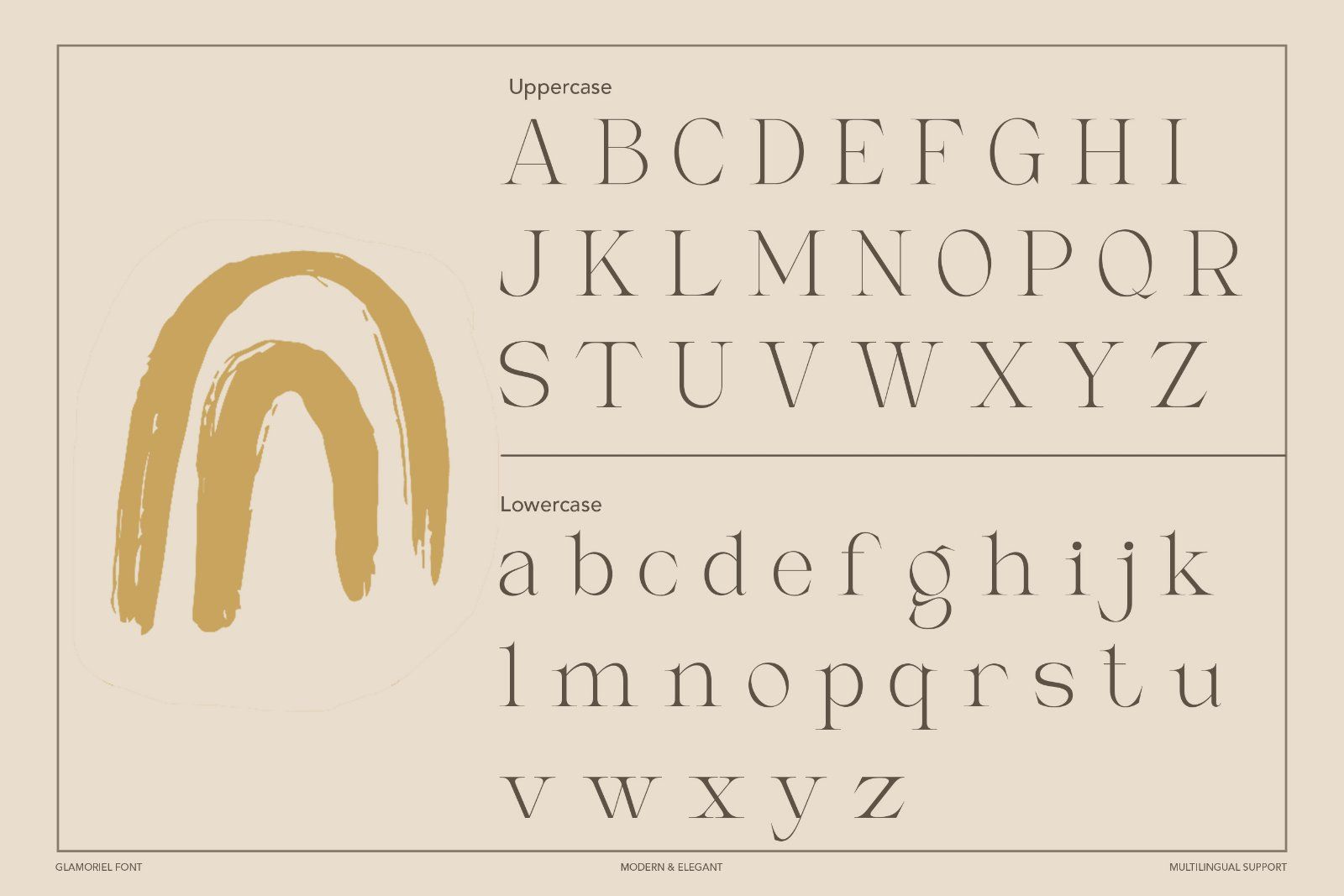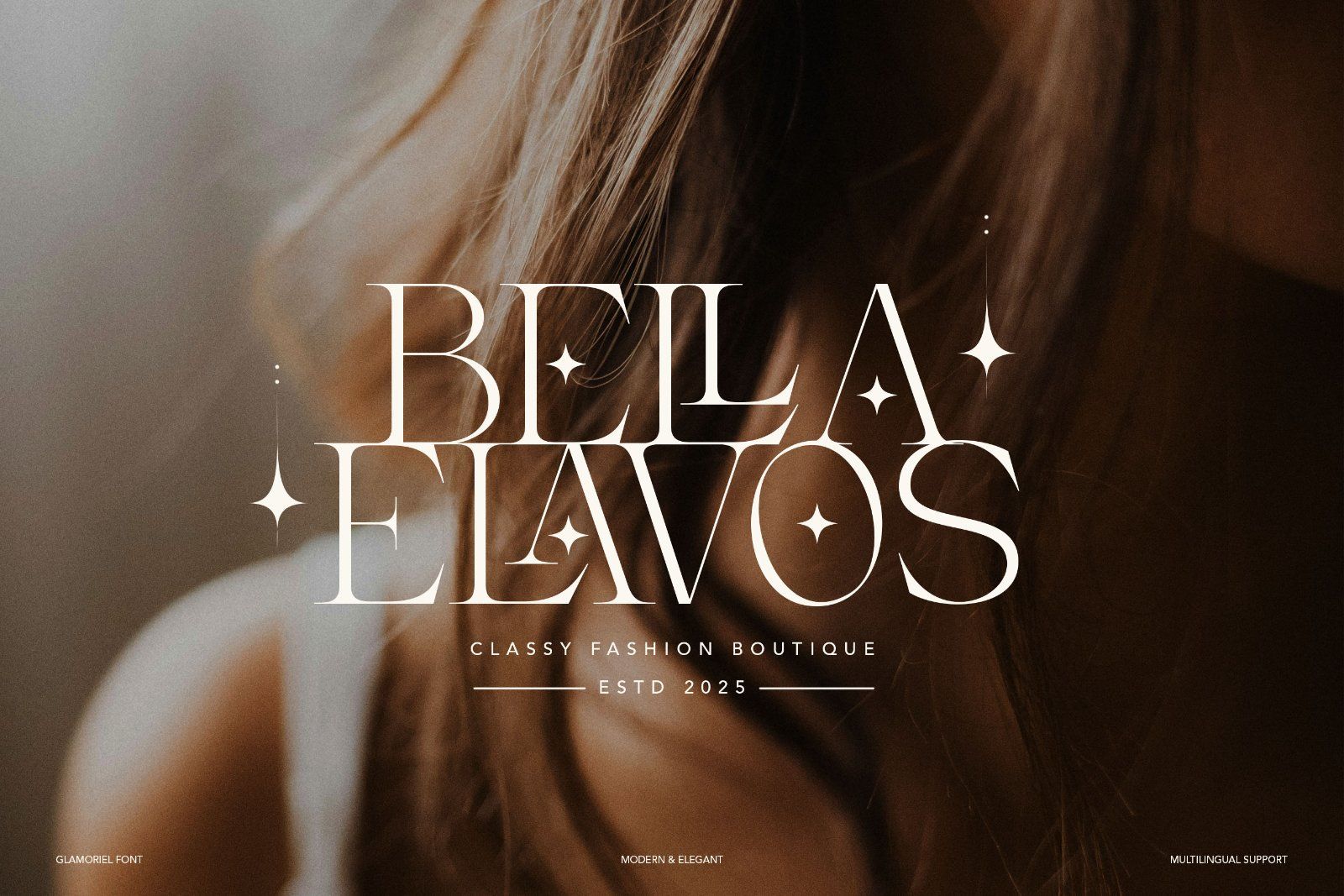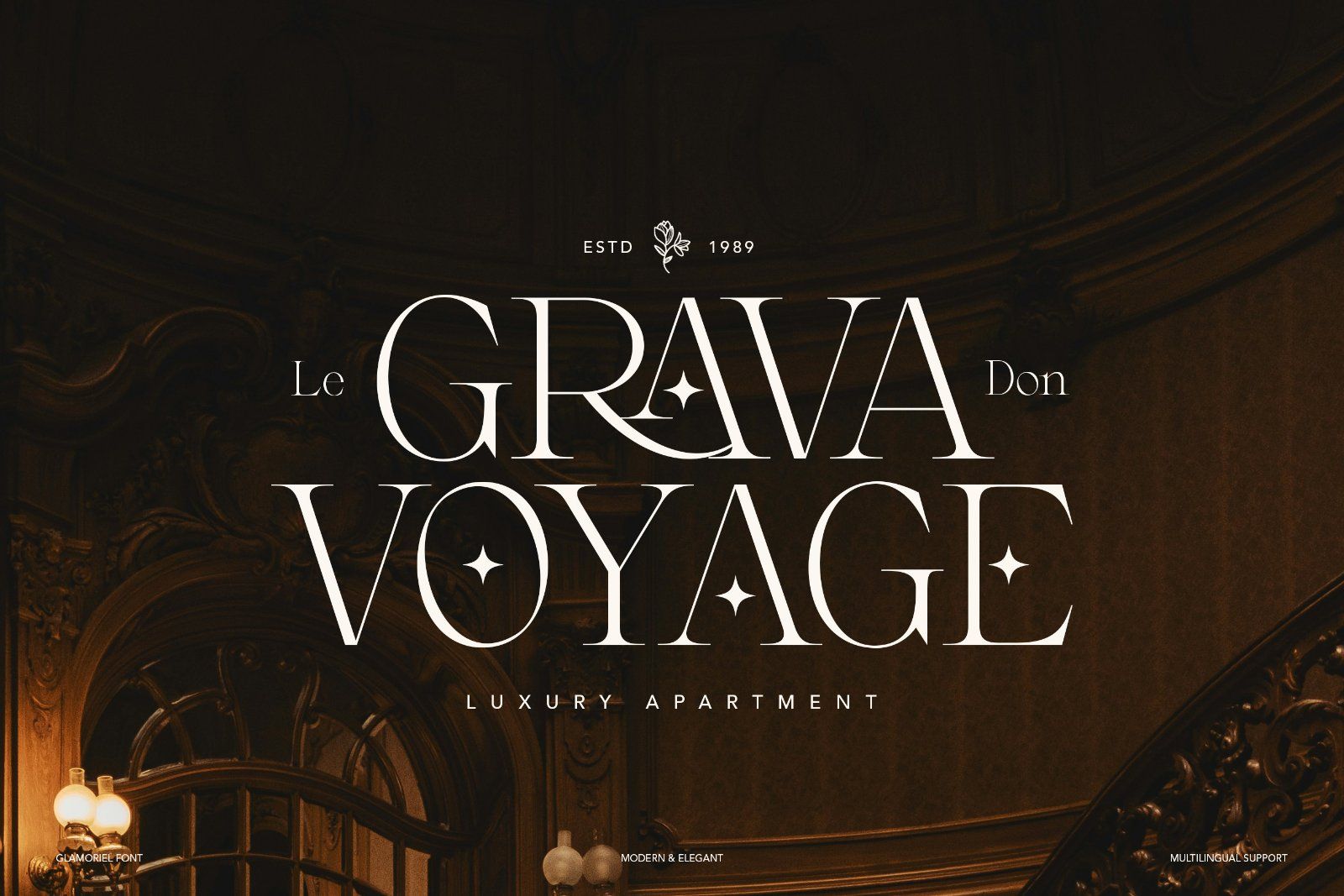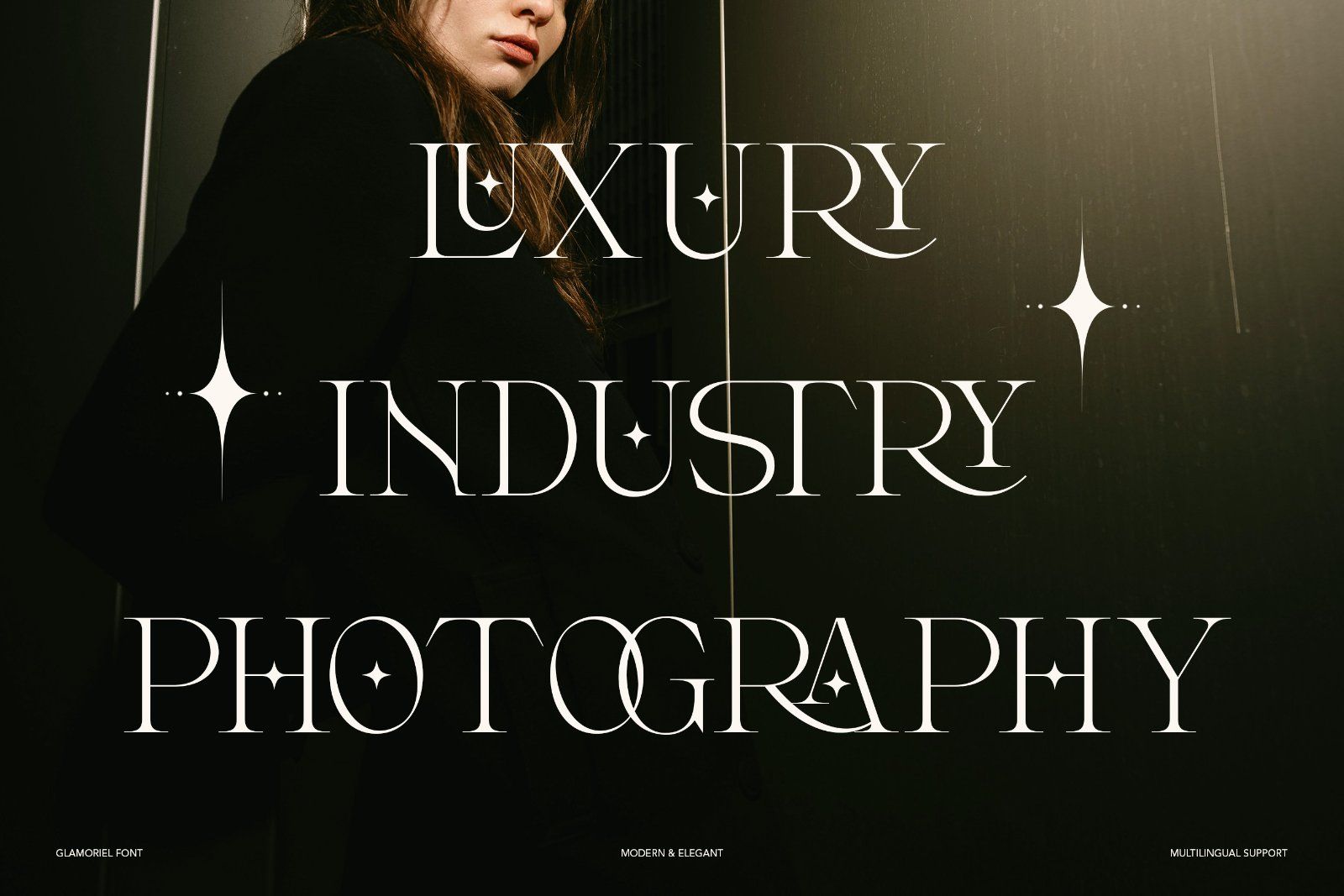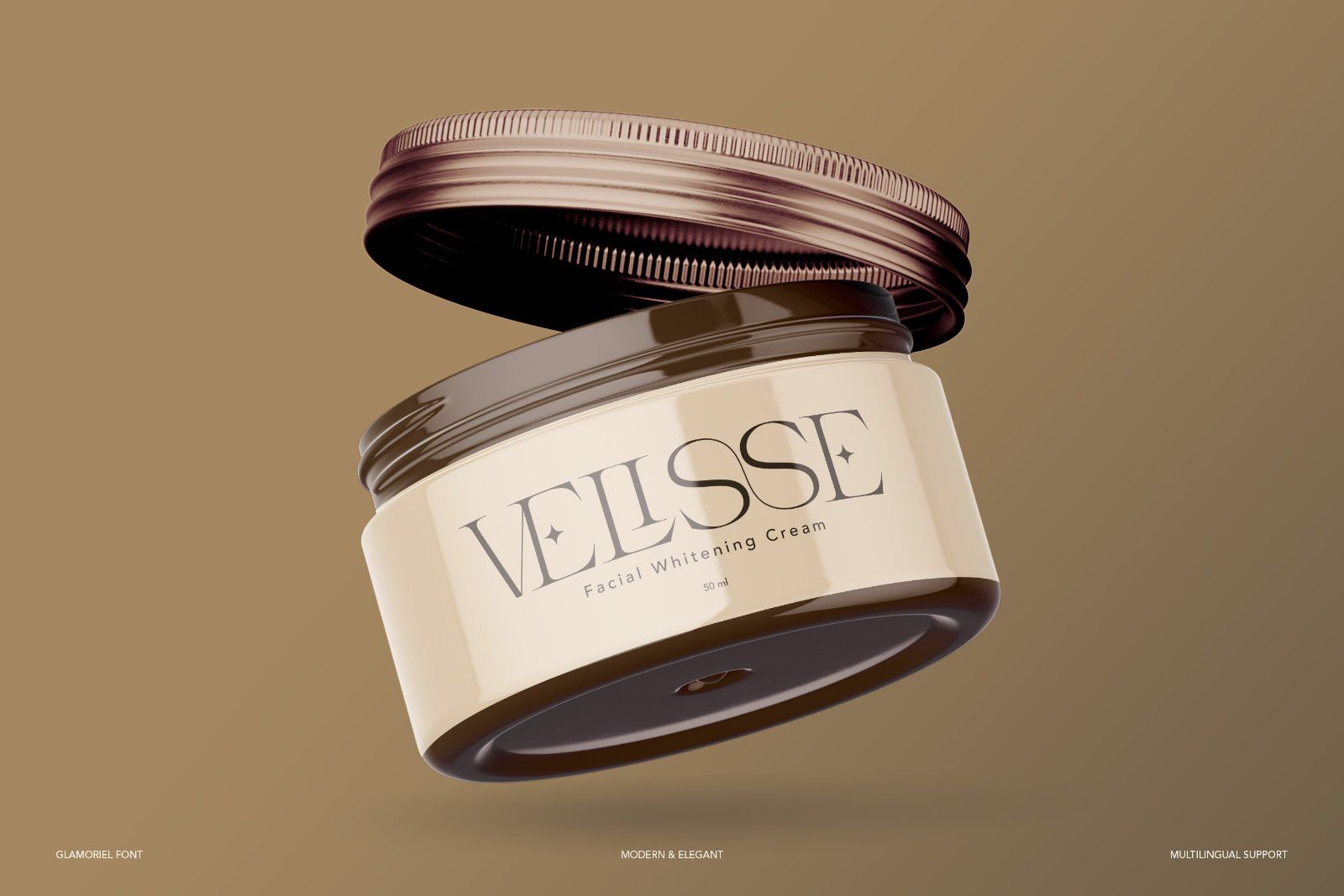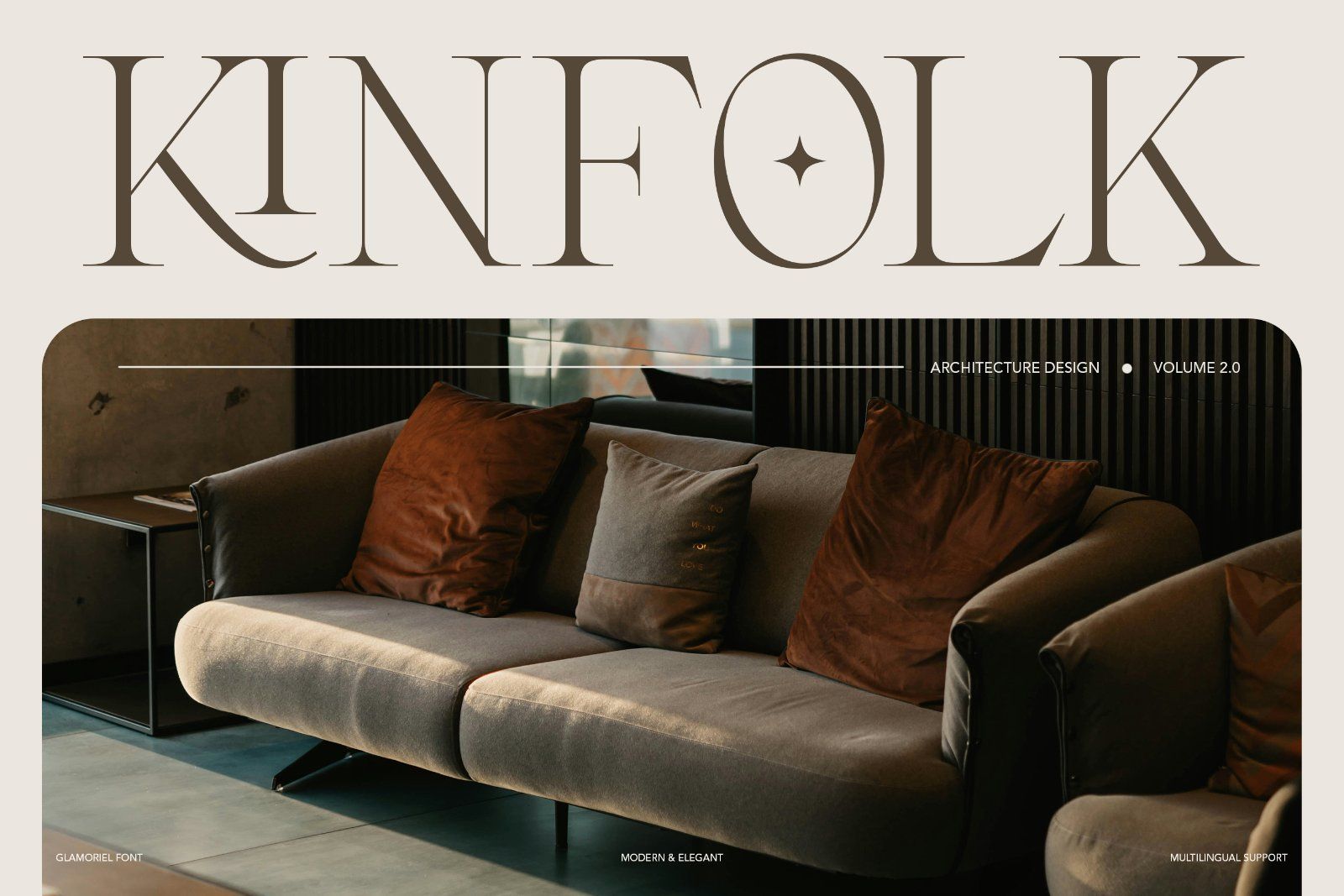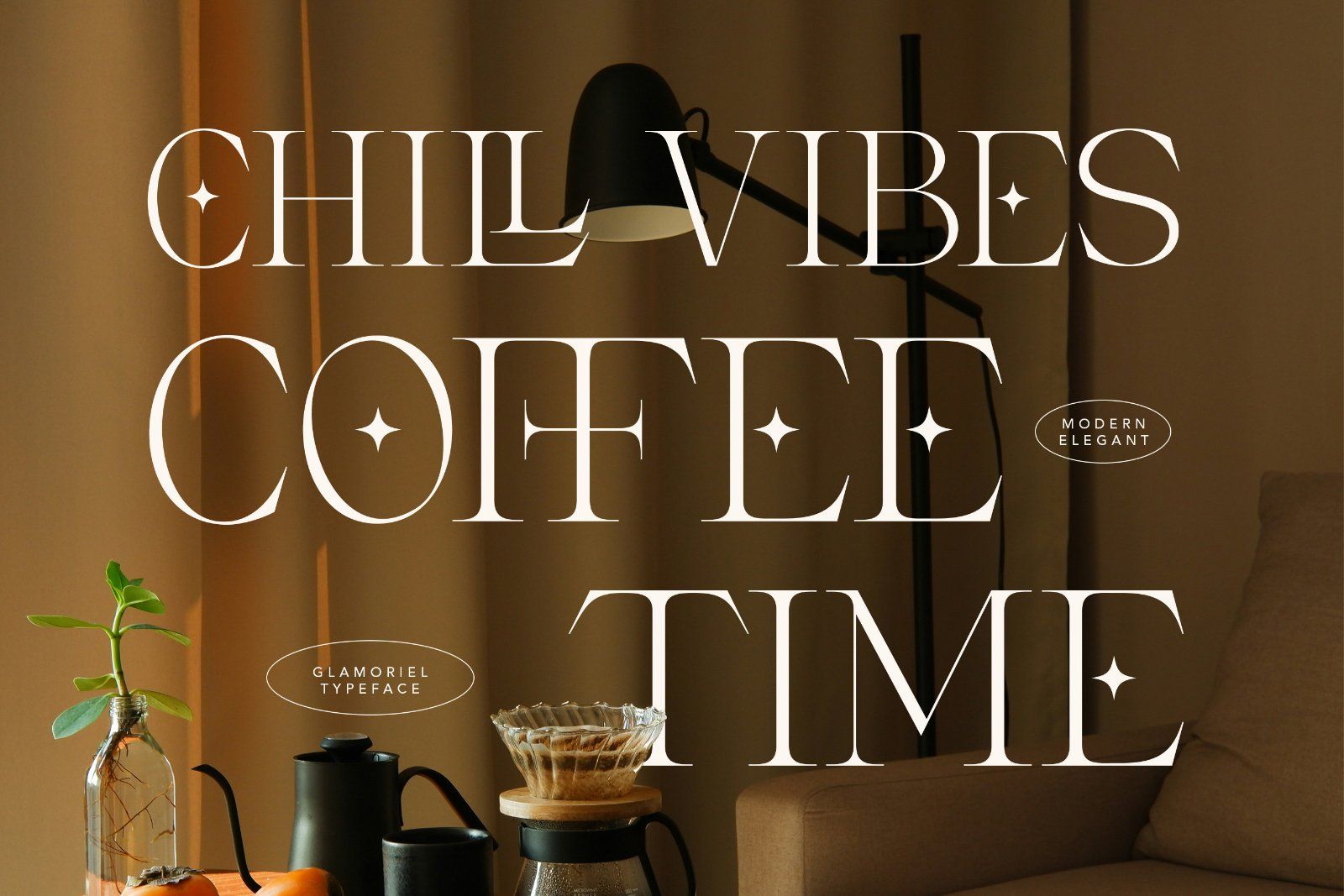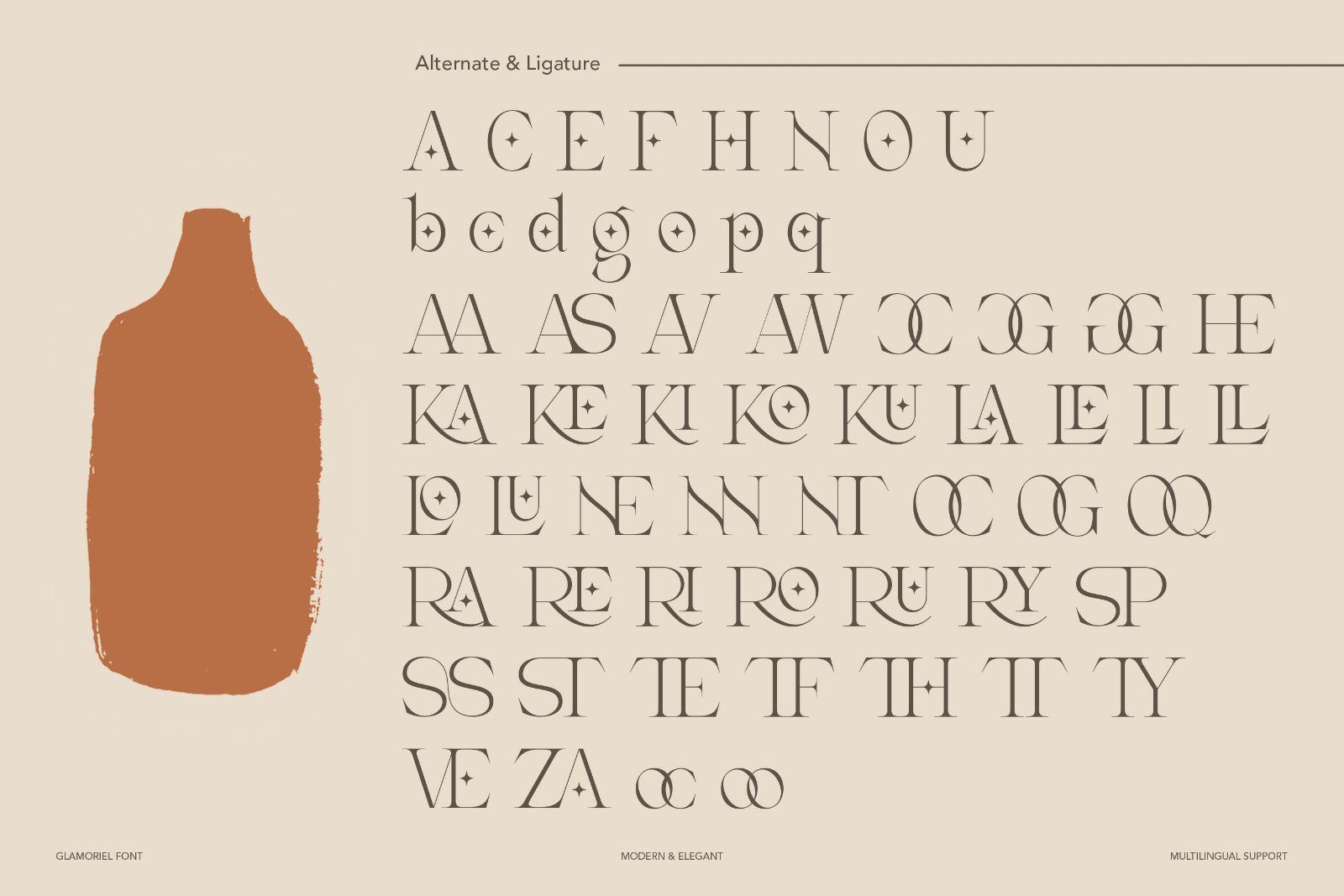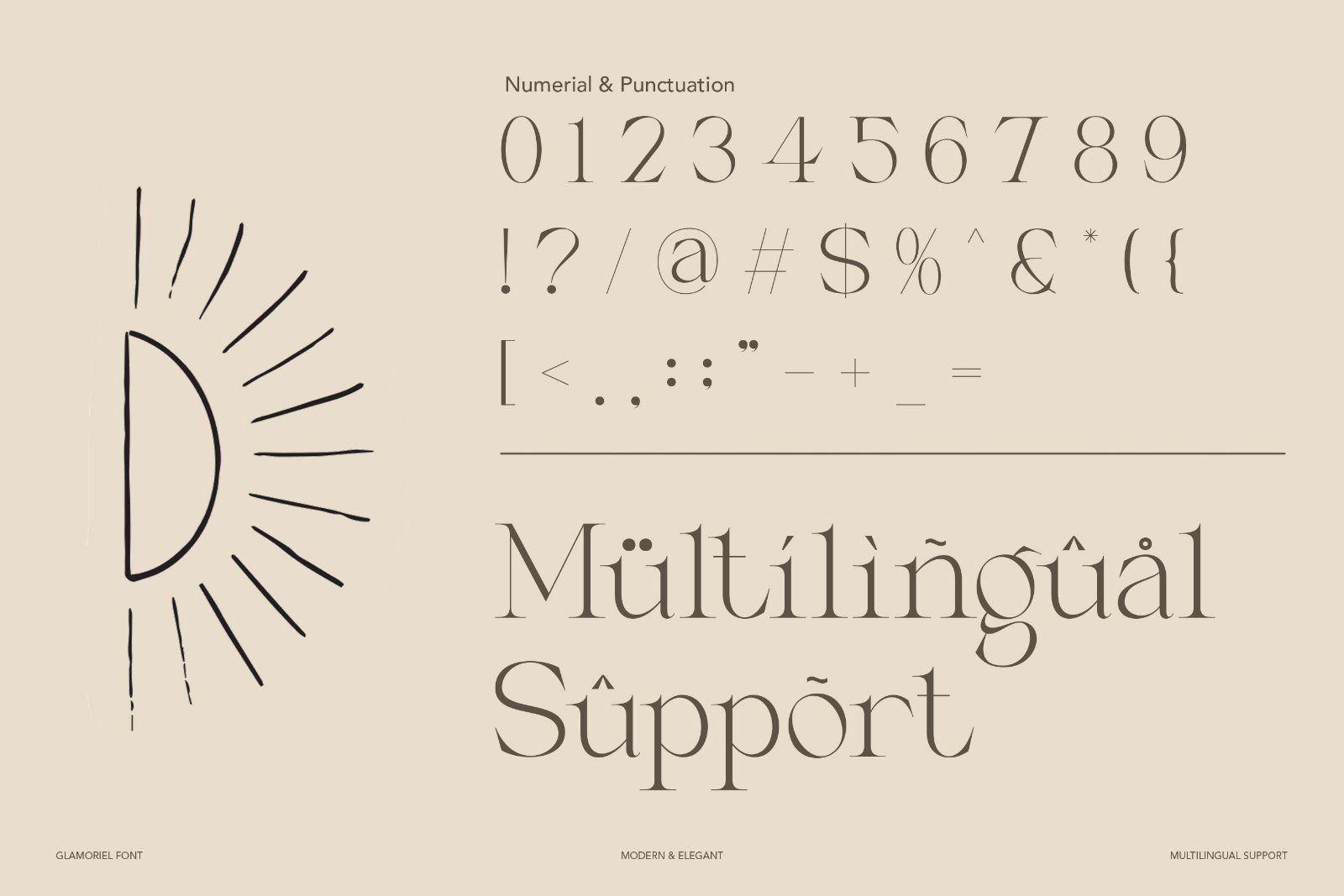
Glamoriel is a refined serif font that blends classic sophistication with modern elegance. Designed with graceful curves and high-contrast letterforms, it adds a luxurious touch to any project. Perfect for logos, editorial layouts, branding, packaging, or social media graphics — Glamoriel turns type into timeless beauty.
• Uppercase alphabet A-Z
• Lowercase alphabet a-z
• Numbers 0-9
• Some punctuation
• Some Alternates and Ligatures